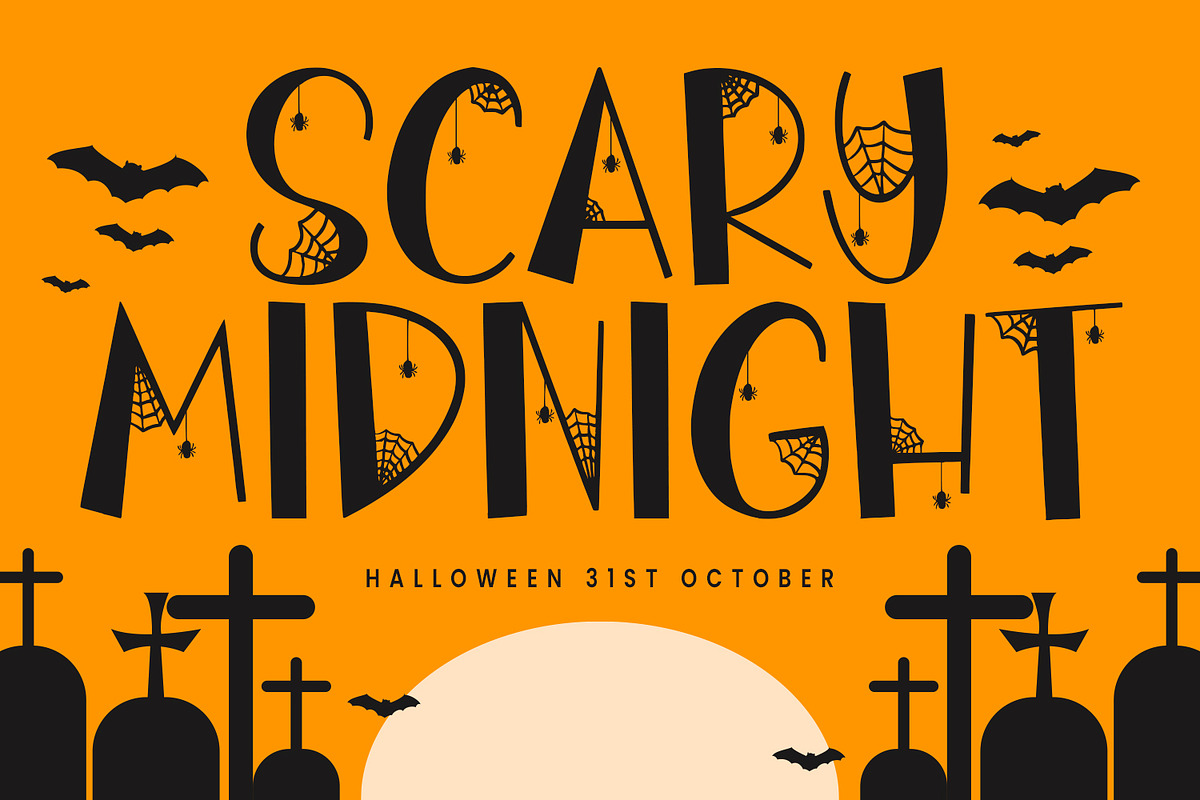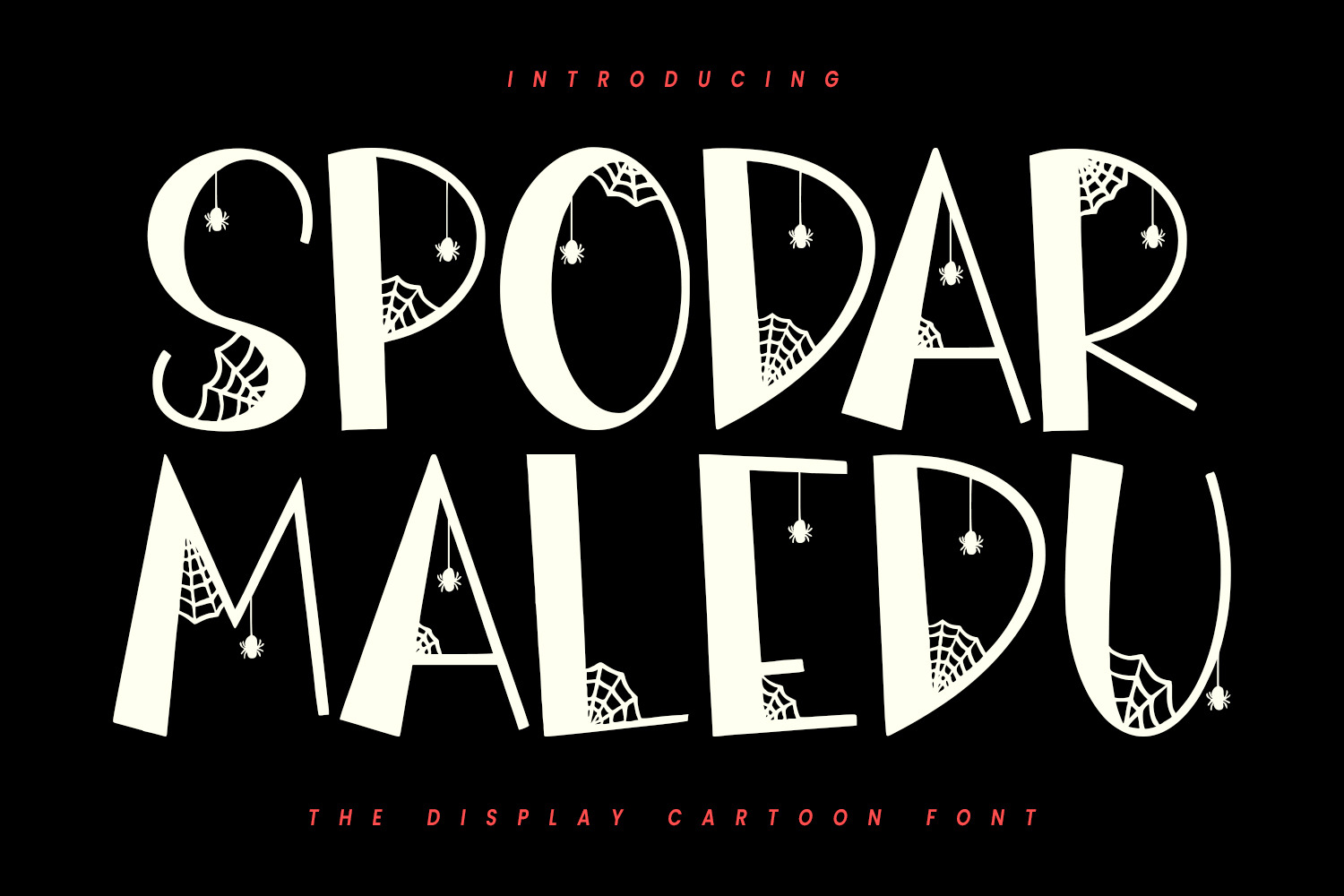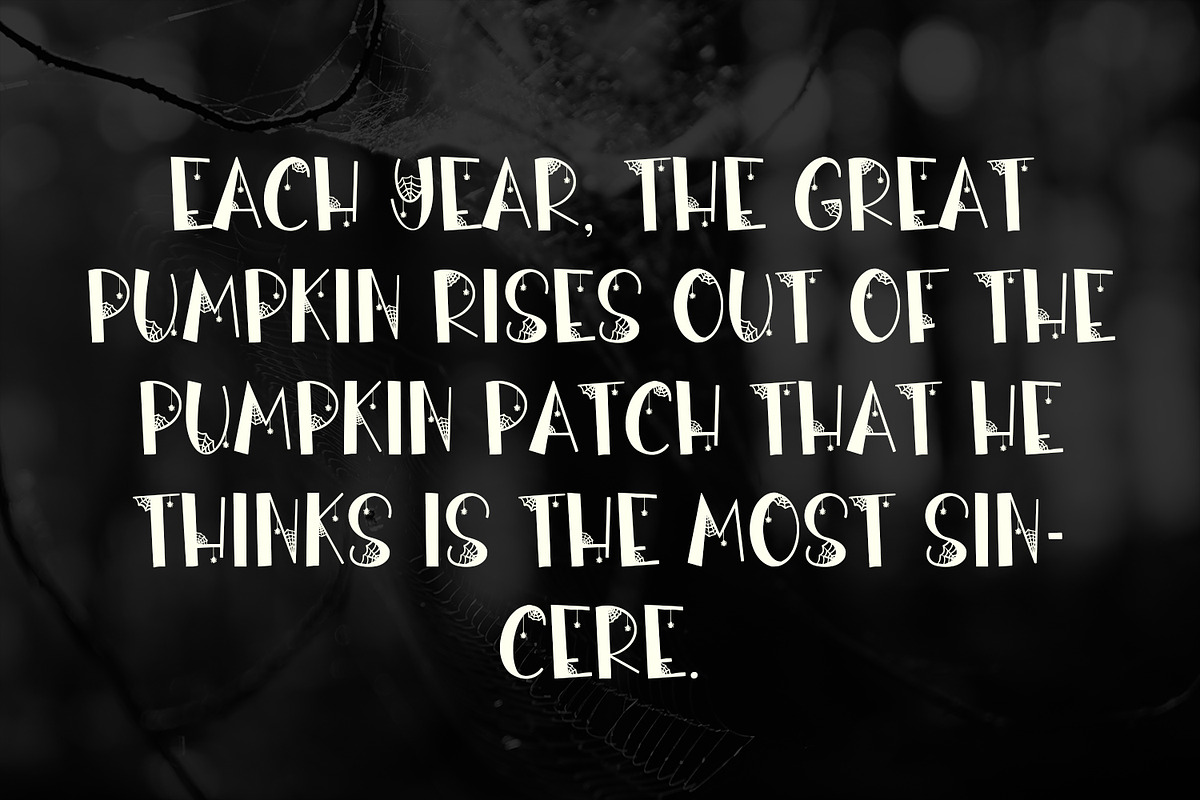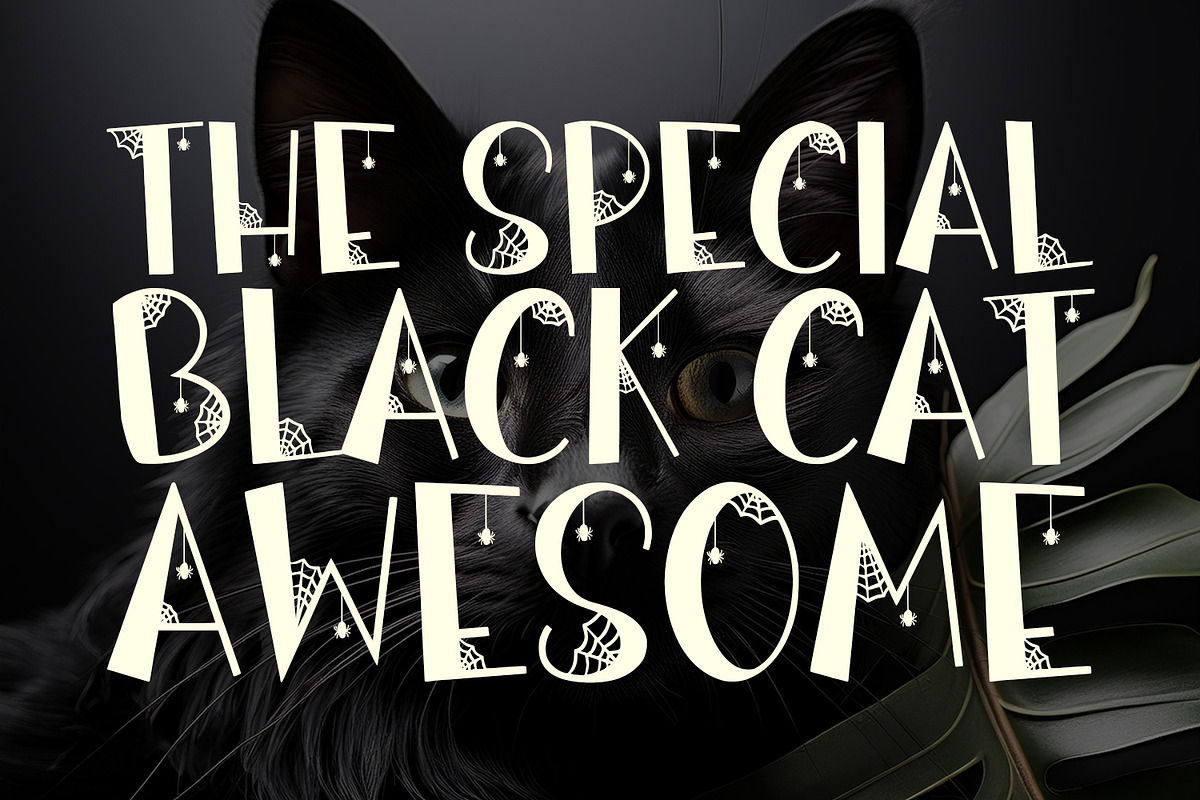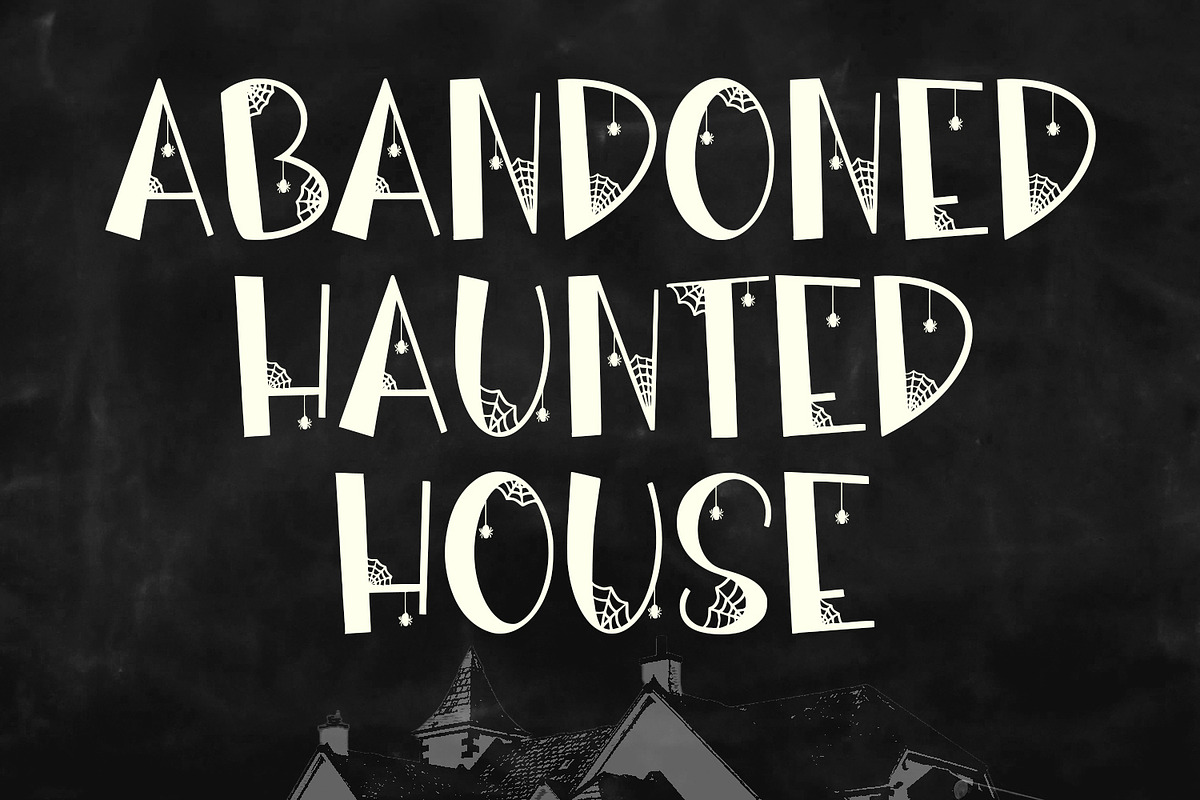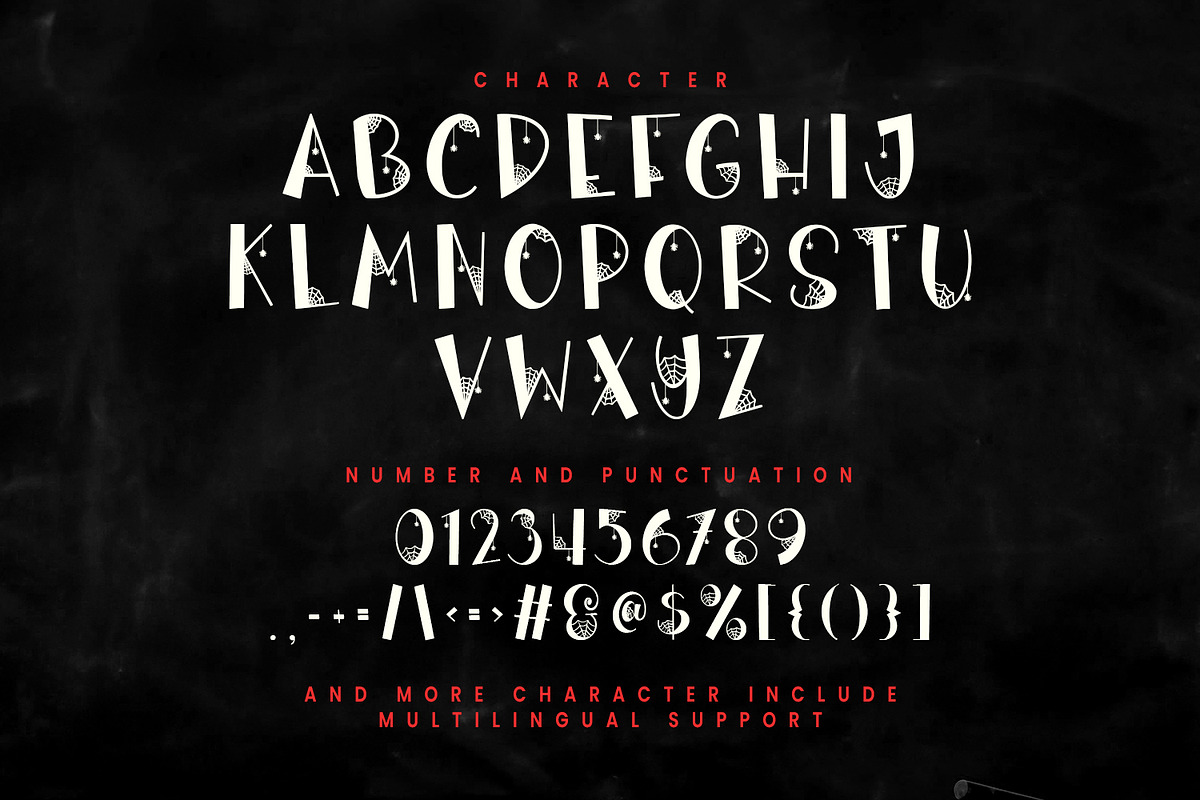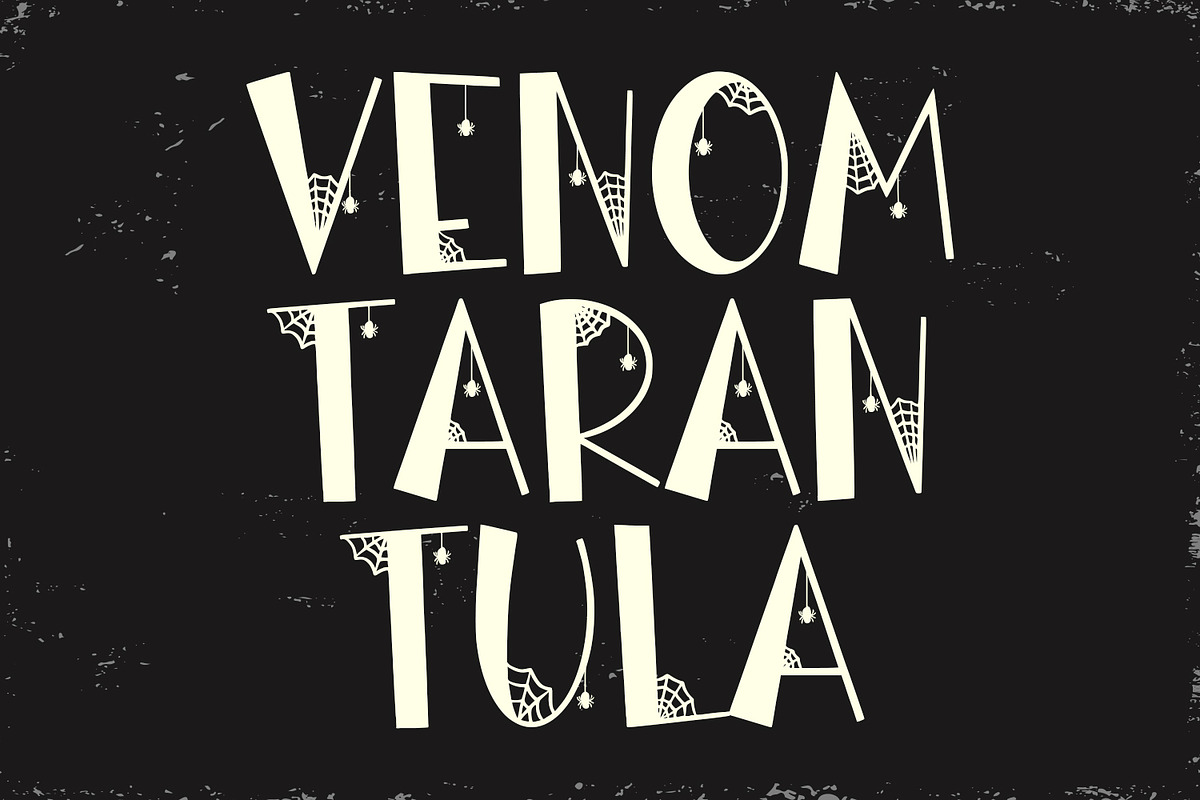
Spodar Maledu Display Cartoon Font
Spodar Maledu is a Horror Vibe Decorative display font. With Medium Sharp stroke, Upright and fun character with a bit of alternates. To give you an extra creative work. Spodar Maledu font support multilingual language. This font is good for logo design, Social media, Movie Titles, Books Titles, a short text even a long text letter and good for your secondary text font with Script. Make a stunning work with Spodar Maledu font.